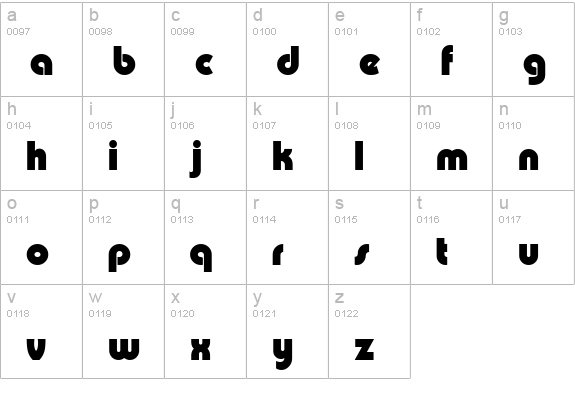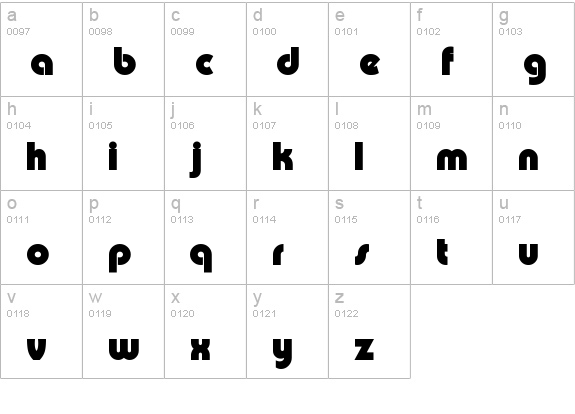
DG_Pump Font Details
Introducing DG_Pump font, a versatile and modern typeface that is sure to make a statement in any design project. This sleek and stylish font features clean lines and a contemporary look, perfect for adding a touch of sophistication to your work. DG_Pump font is not only visually appealing but also incredibly easy to read, making it ideal for a wide range of applications including branding, advertising, packaging, and more. Whether you're designing a website, creating a logo, or working on a print project, DG_Pump font is sure to impress. Best of all, DG_Pump font is completely free to download at FontsMarket.com. That's right, you can get your hands on this stunning font without spending a dime. So why wait? Elevate your designs with DG_Pump font today and see the difference it can make!